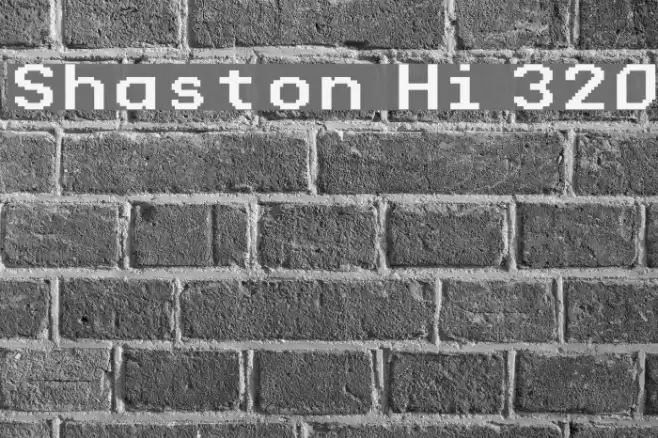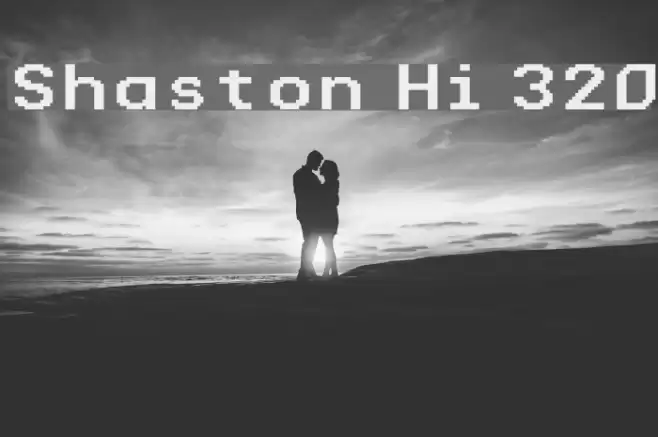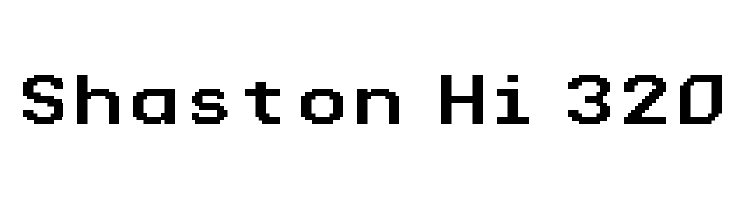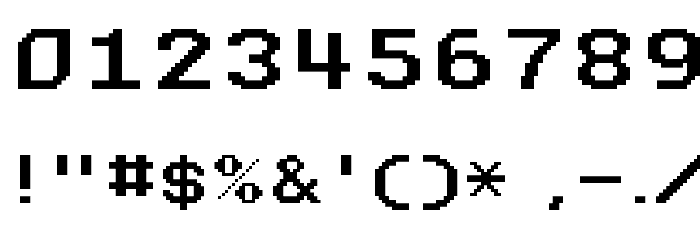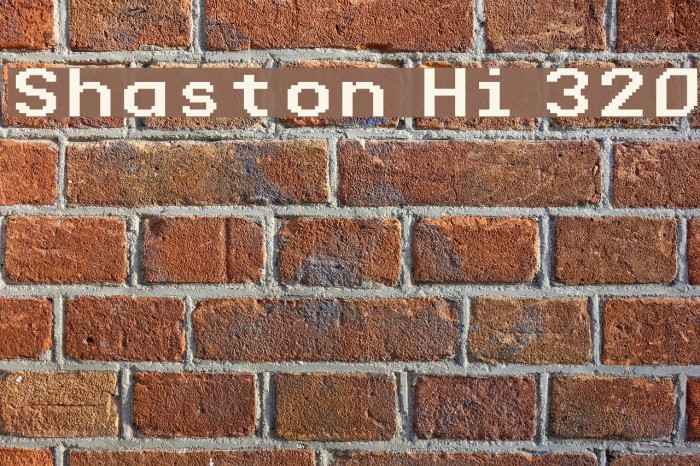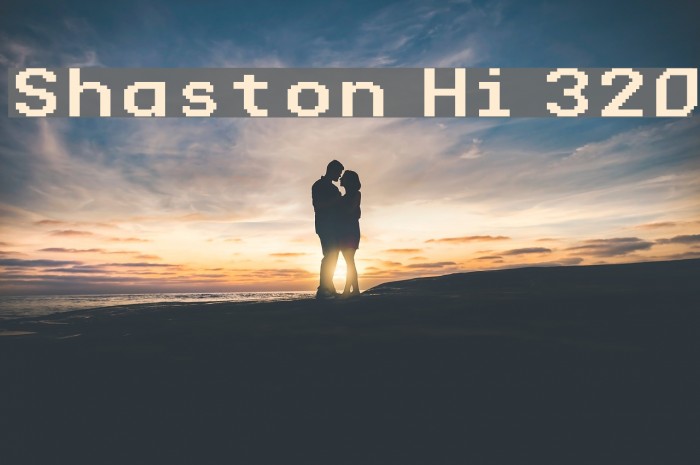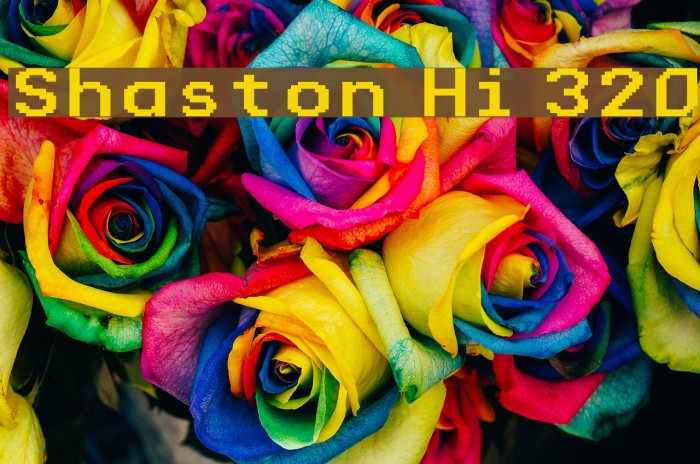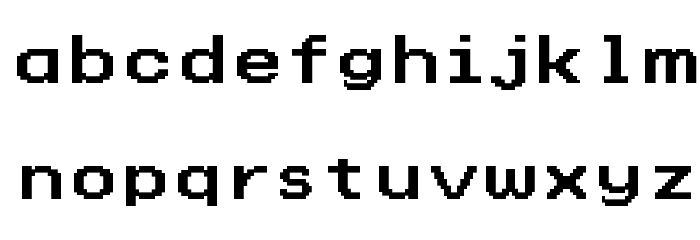
Shaston Hi 320 Font
Shaston Hi 320 Description
This font features a pixelated, monospaced design reminiscent of early computer and video game typography. Each character is constructed with a uniform grid-like structure, giving it a distinctly retro and digital aesthetic. The uppercase and lowercase letters maintain a consistent height and width, contributing to its monospaced nature. The numerals and special characters follow the same pixelated style, ensuring uniformity across all glyphs. This font's simplicity and clarity make it ideal for digital displays and retro-themed projects.
A pixelated, monospaced font with a retro digital aesthetic from Uncategorized fonts.
- Proposed Projects: Ideal for retro video games, digital displays, coding environments, and nostalgic design projects.
- Overall Style: Retro
- Use Case: Digital displays, Coding, Retro games